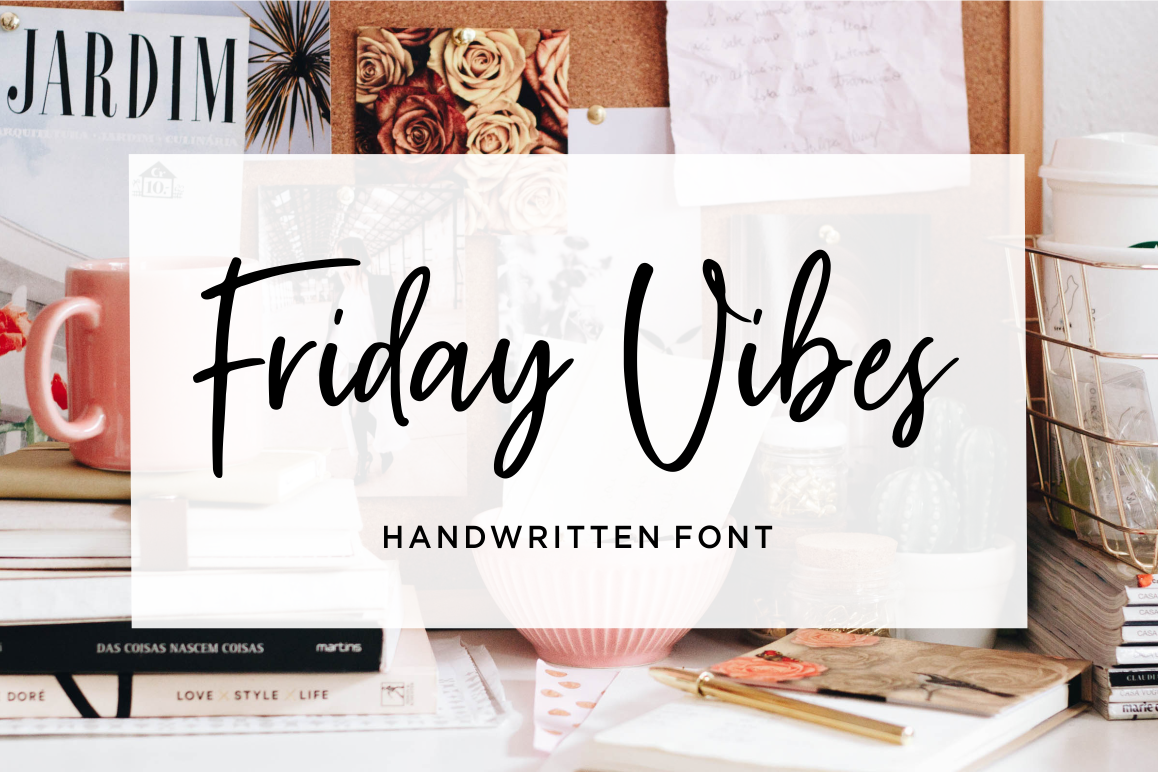
Friday Vibes
Introducing Friday Vibes - a new modern & fresh handlettering font,make this font looks natural, modern, and perfect for any awesome projects.
Friday Vibes is perfect for many different project such as logos & branding, invitation, stationery, wedding designs, social media posts, advertisements, product packaging, product designs, label, photography, watermark, special events or anything.